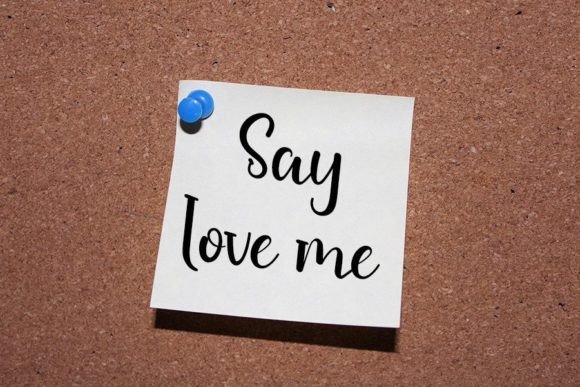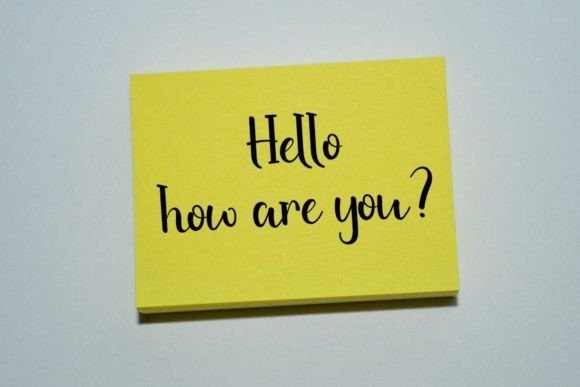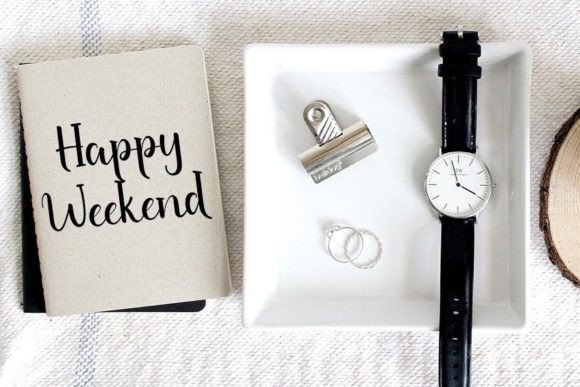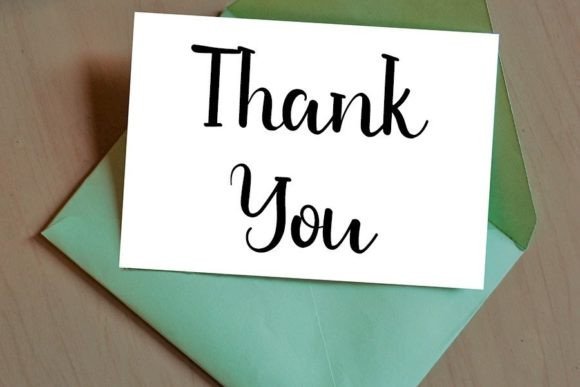
The Perfect Blend of Elegance and Whimsy: Beach School Font
Have you ever found yourself on a beach at sunset, surrounded by the soothing sounds of the waves and the warmth of the fading light? It’s in those magical moments that creativity strikes, and the world feels like a blank canvas waiting to be filled with color and life. For designers, those moments of inspiration are a constant pursuit, and the right tools can make all the difference.
| 👤 Author | Kongsi.Co |
Enter the Beach School Font, a beautiful handwritten font that embodies the essence of a carefree summer day. With its elegant touch and timeless style, this font is perfect for adding a touch of sophistication to your designs. Whether you’re a graphic designer, a writer, or a social media enthusiast, the Beach School Font is an invaluable addition to your creative toolkit.
Beach School Font Key Features
- Size: The font family includes multiple weights and styles, ranging from 100 to 900, with each weight offering a unique character set.
- Resolution: Designed for on-screen use, Beach School Font is optimized for high-resolution displays, with clear and crisp typography at resolutions up to 300 DPI.
- Unique Characteristics: The font features a unique, hand-drawn aesthetic with subtle texture and imperfections, giving it a warm and inviting feel.
- Kerning and Ligatures: The font includes advanced kerning and ligature tables, ensuring smooth and even spacing between characters.
Beach School Font Review
Overall, I’d say the Beach School Font is a lovely addition to any designer’s toolkit. It’s a great choice for projects that need a bit of whimsy and charm. ✨ The font’s hand-drawn feel and soft, rounded edges make it perfect for creating a friendly and approachable atmosphere.
One of the things I appreciate about Beach School Font is its versatility. It works well for a wide range of applications, from children’s books and educational materials to branding and marketing materials. ✨ It’s also a great choice for creating eye-catching headlines and titles.
What I Like:
- Unique, hand-drawn feel that sets it apart from other fonts
- Soft, rounded edges that make it perfect for creating a friendly atmosphere
- Highly versatile and suitable for a wide range of applications
- ⚠️ The font may be too playful for some corporate or formal projects
- ⚠️ The hand-drawn feel may not be suitable for projects that require a high level of professionalism
- ⚠️ The font may be difficult to read in smaller sizes or for people with vision impairments
Overall, I’d give Beach School Font 4 out of 5 stars. It’s a great choice for designers who want to add a bit of personality and whimsy to their projects, but may not be the best fit for every project.
Here are some tips to help you get the most out of Beach School Font:
- Use it in combination with other beach-themed elements to create a cohesive design.
- Experiment with different font sizes and colors to add visual interest.
- Use it in headings and subheadings to create a clear hierarchy of information.
Here are some common use cases for Beach School Font:
- Beach-themed invitations and party decorations.
- Summer-themed social media graphics and ads.
- Beach-inspired print designs and packaging.
Comparison: Ostrich Sans has a similar playful and laid-back feel to Beach School Font, but with a more refined and sophisticated design. It is also more versatile and can be used in a variety of contexts, from formal to informal.
The recommended font size for using Beach School Font is between 12pt and 24pt. This range allows for optimal legibility and visual impact. However, feel free to experiment with different font sizes to achieve the desired effect for your design project.
Q: Can I customize the Beach School Font?
The Beach School Font is a highly customizable font, allowing you to adjust various parameters such as kerning, tracking, and line spacing. You can also use font editing software to create custom variations or modifications to the font.